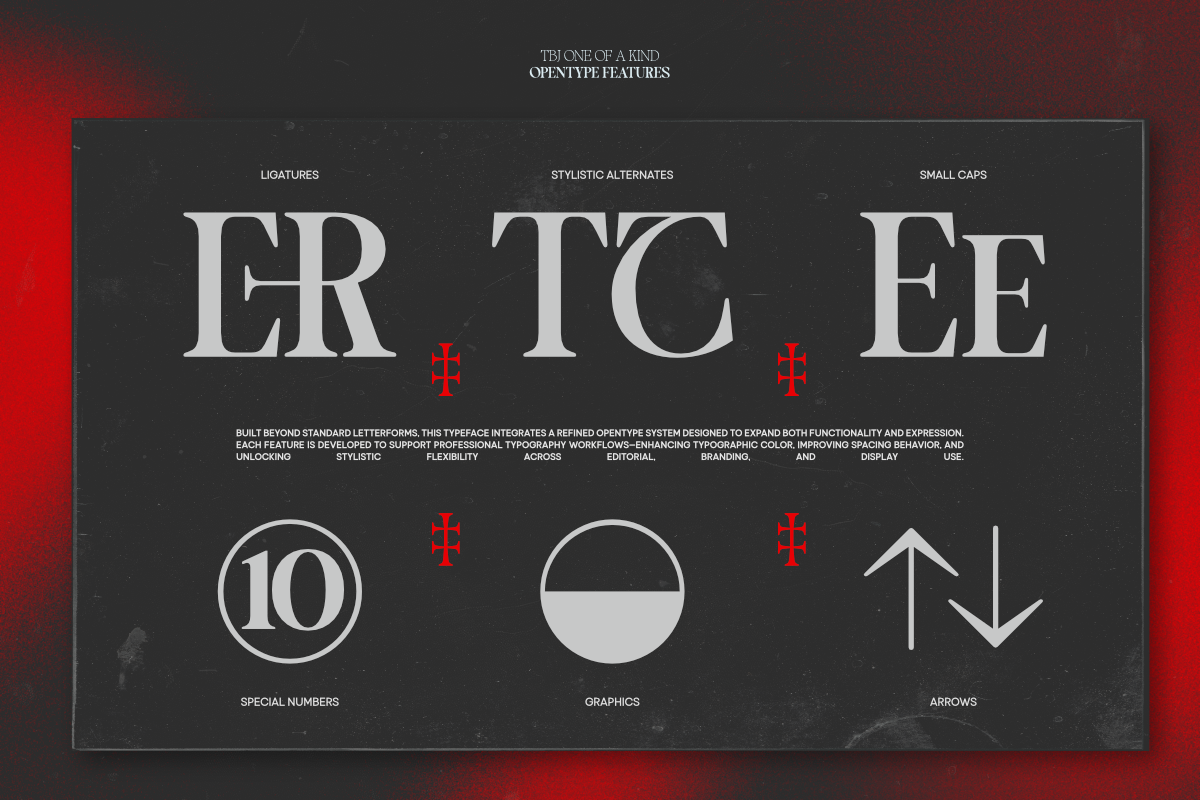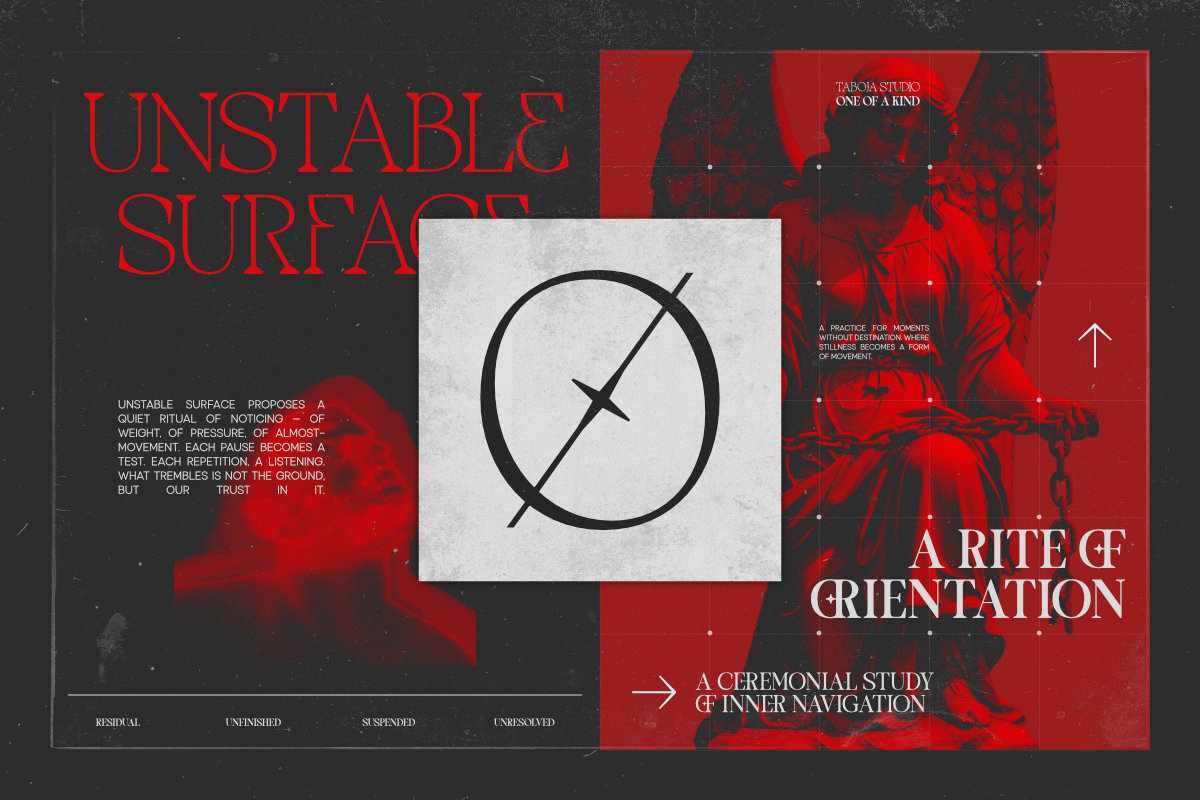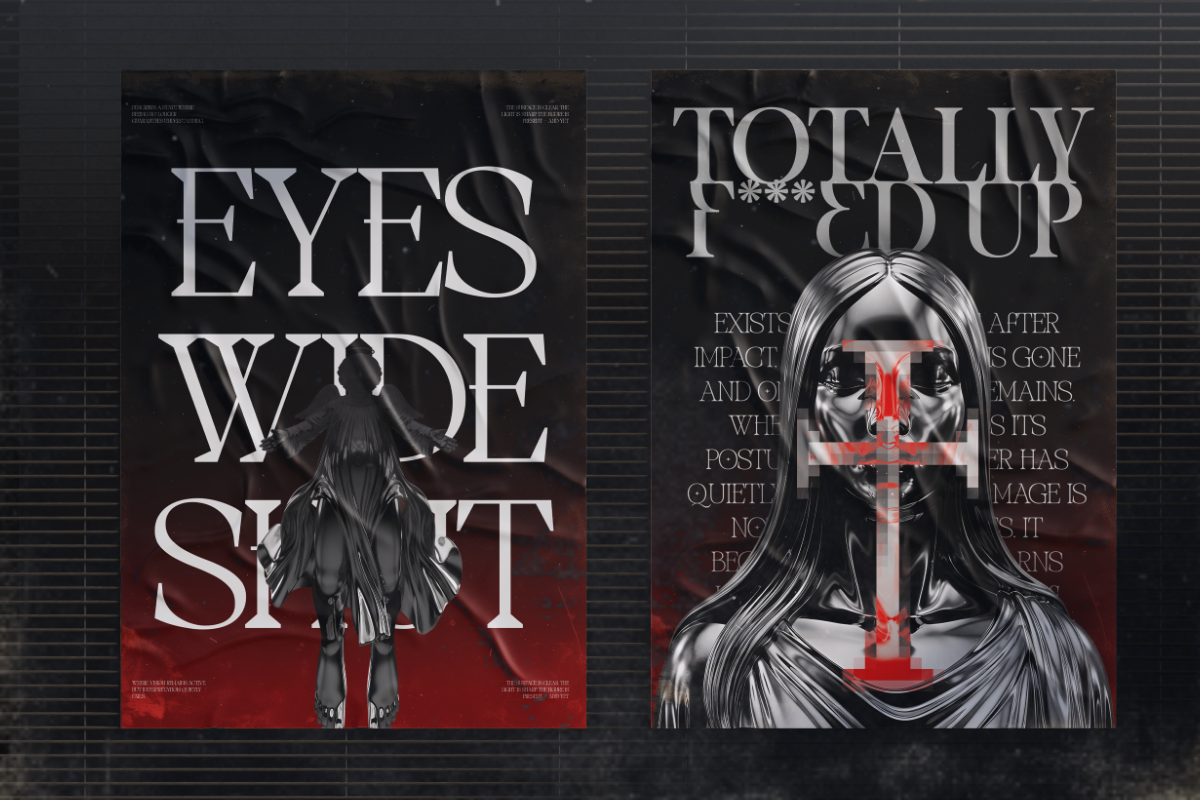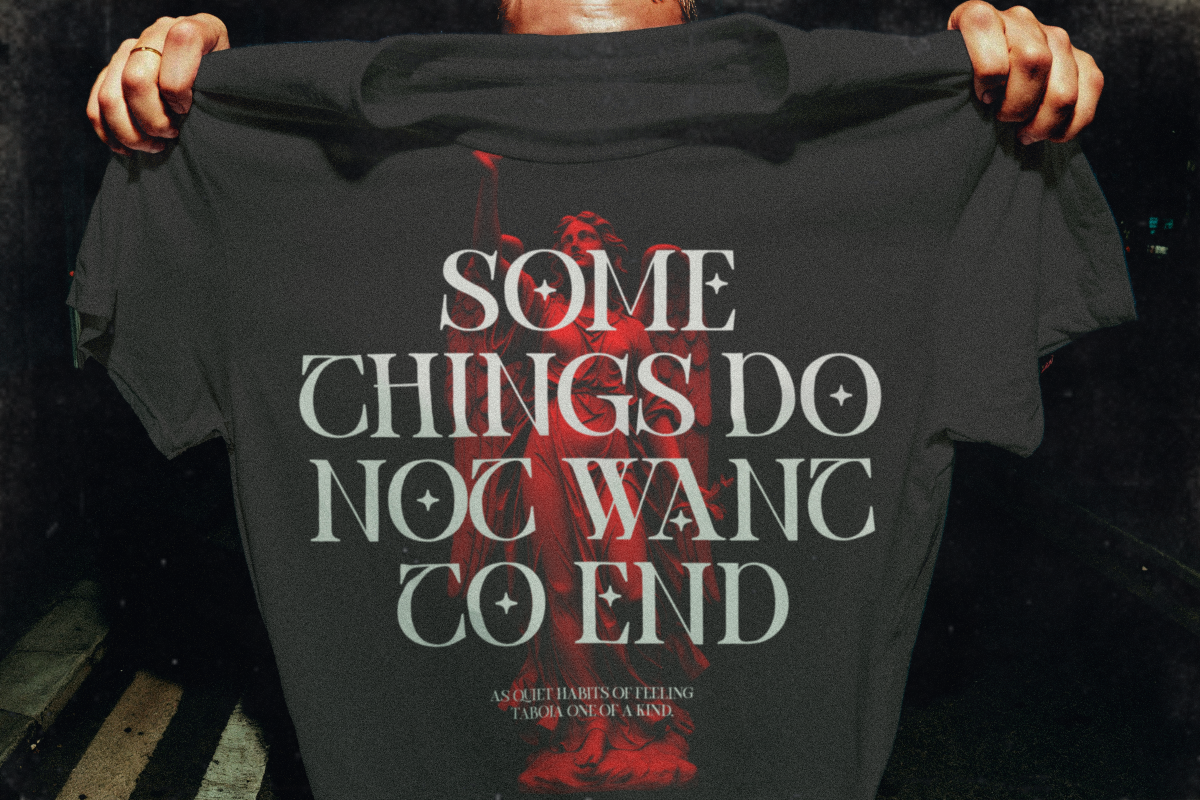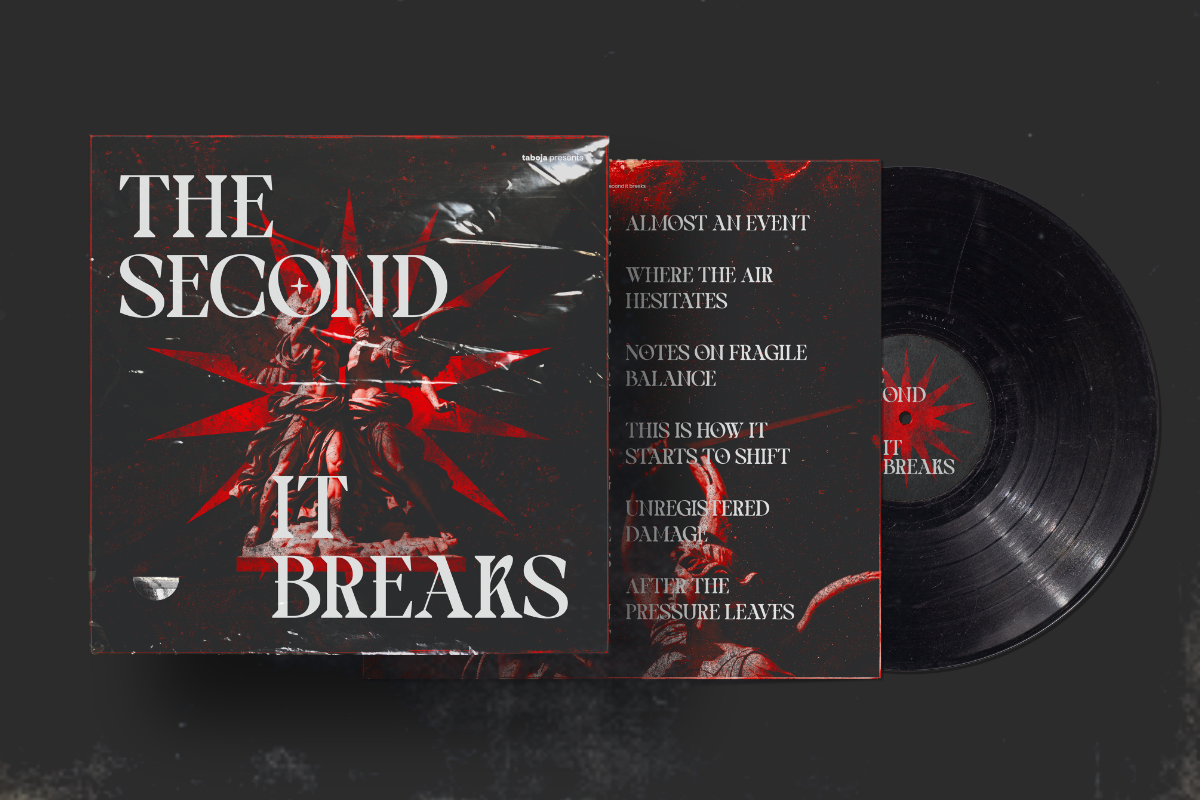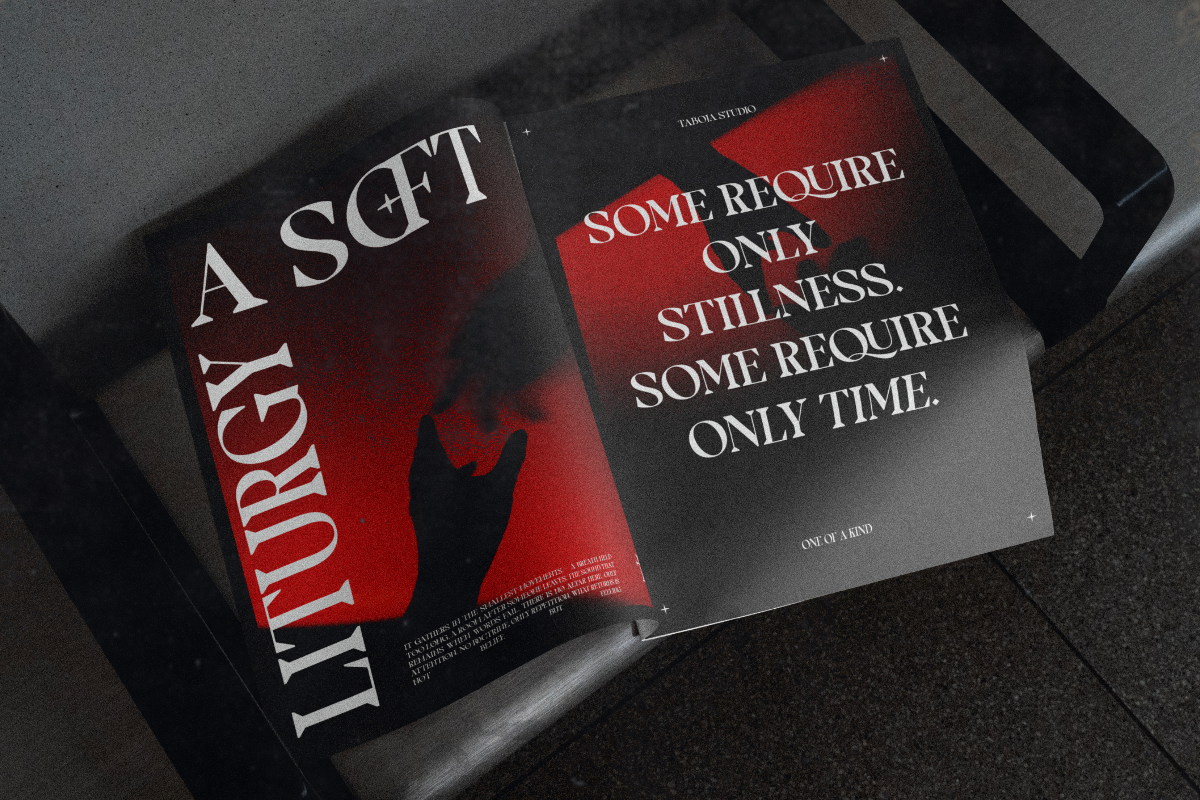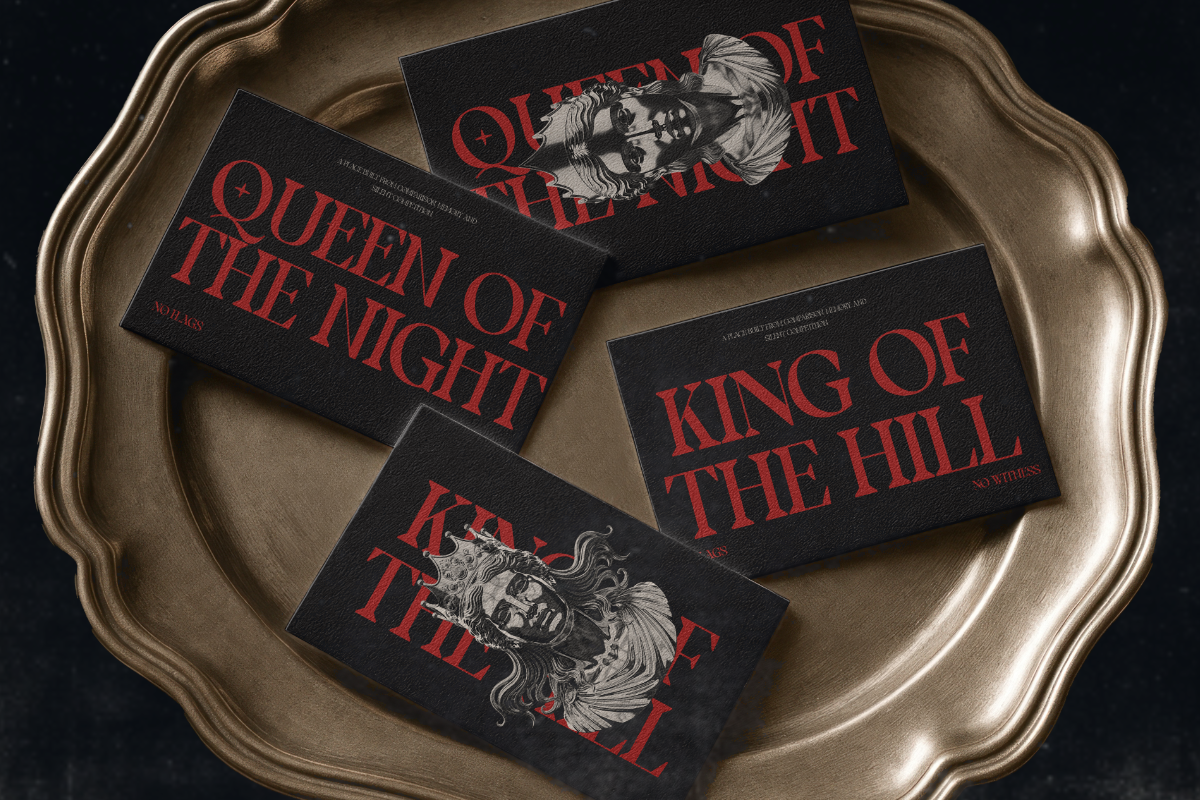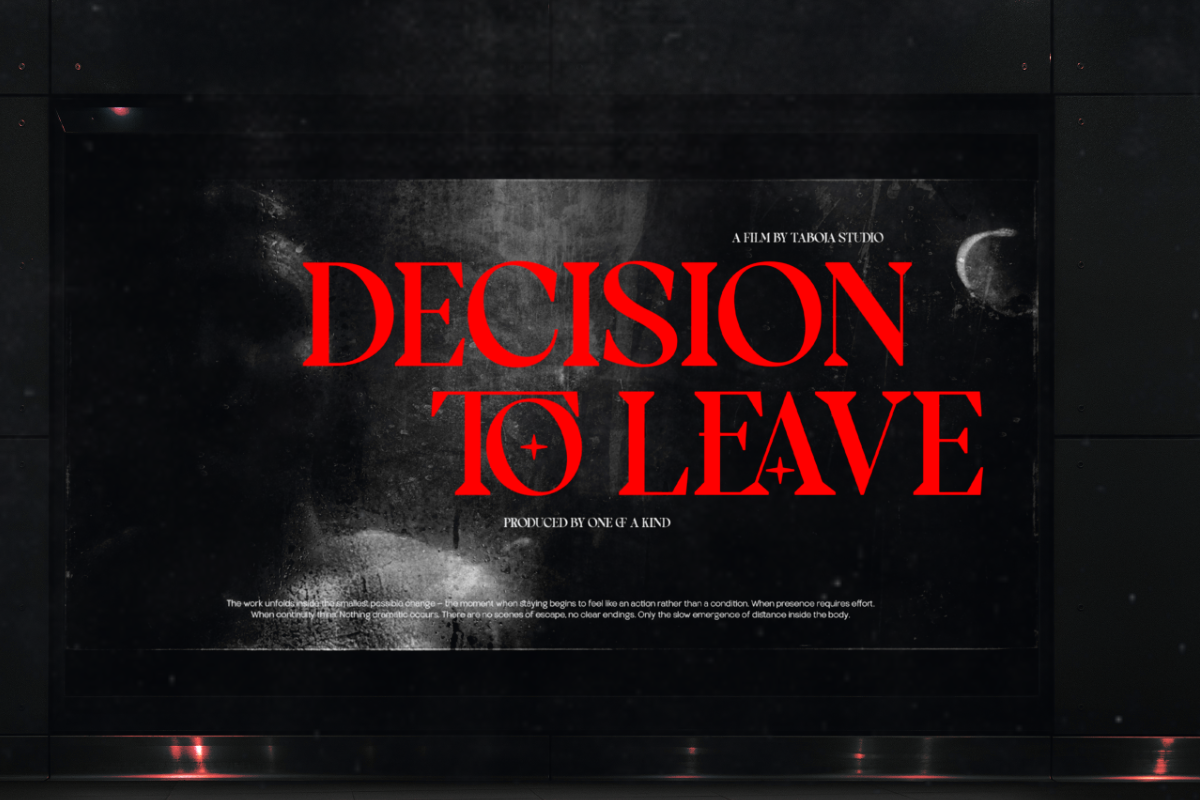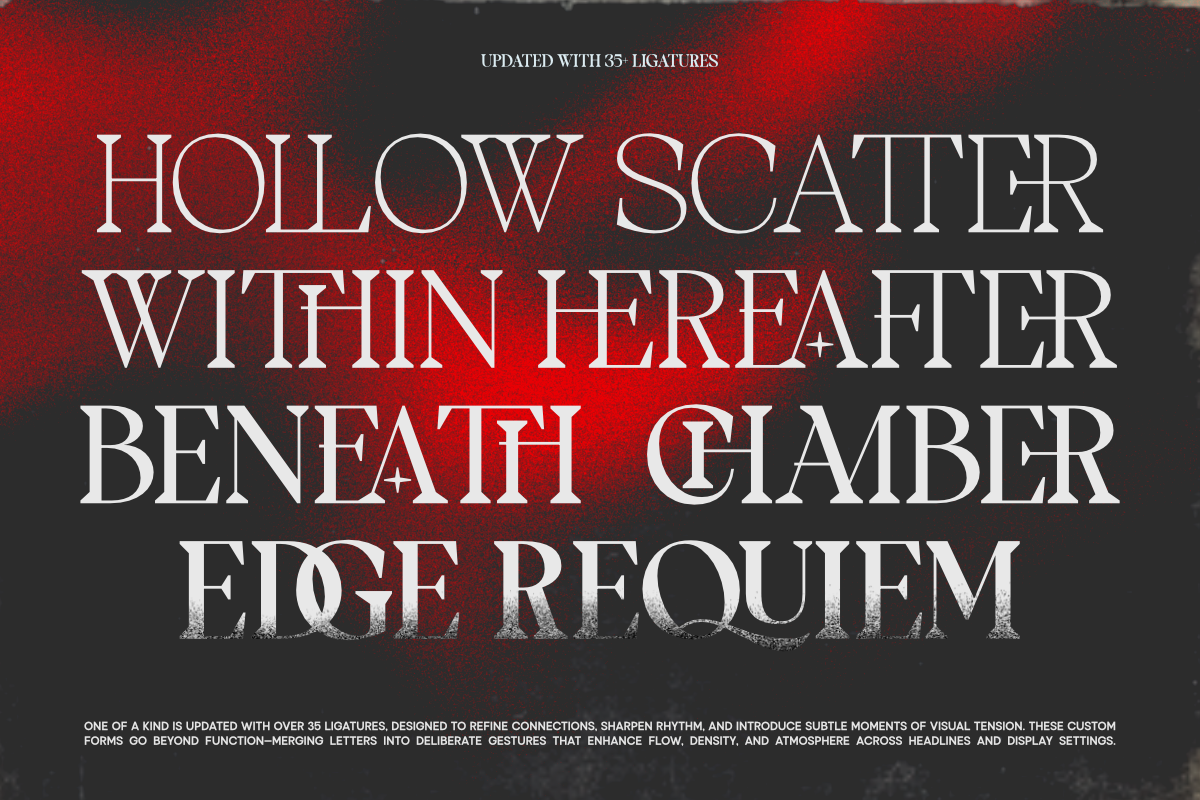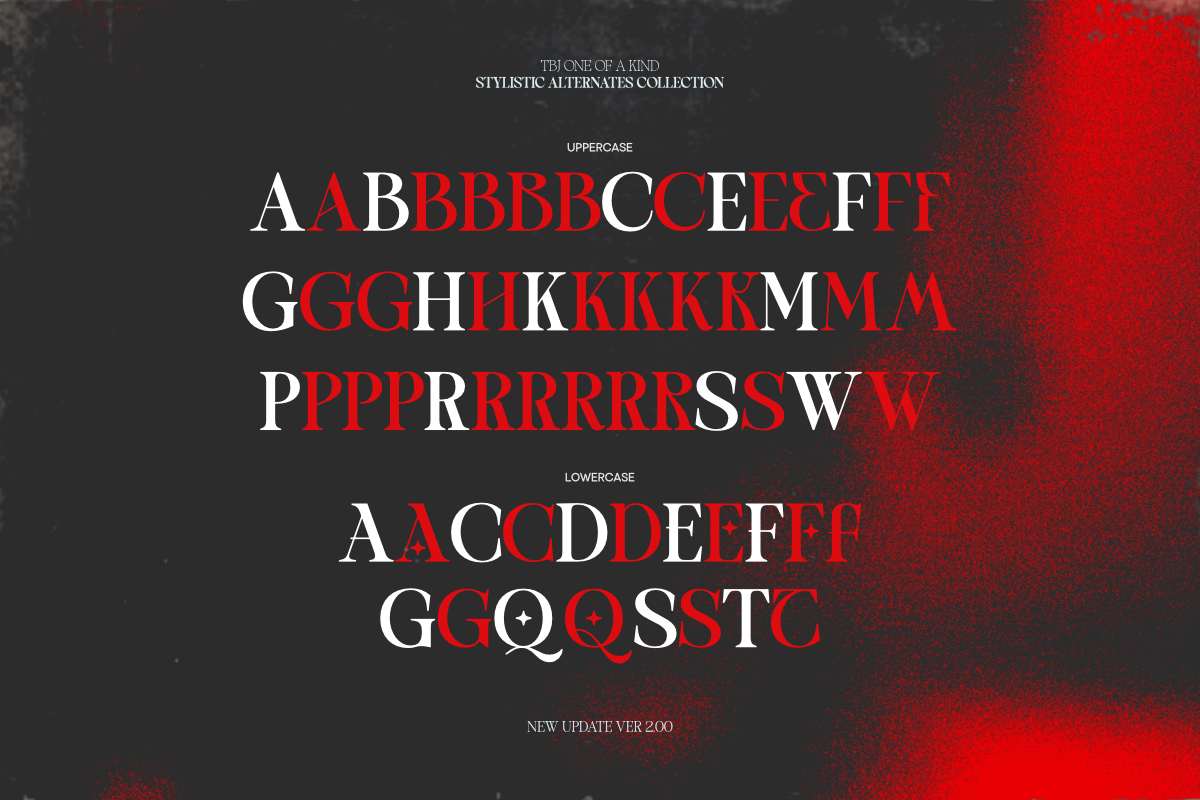
TBJ One Of A Kind Serif Font Family
One of a Kind by Taboja Studio is a modern experimental serif typeface now updated with refined alternates, fresh ligatures, a complete family, and two distinct styles: Polished (Smooth) and Sharp (Angular).
It merges classic serif sophistication with bold modern innovation. The contrast between its polished curves and angular serifs brings an expressive yet balanced character, ideal for branding, editorial design, posters, and sophisticated display use.
Each letterform is crafted to balance elegance and experimentation making it perfect for designers seeking a typeface that feels timeless, artistic, and forward-thinking.